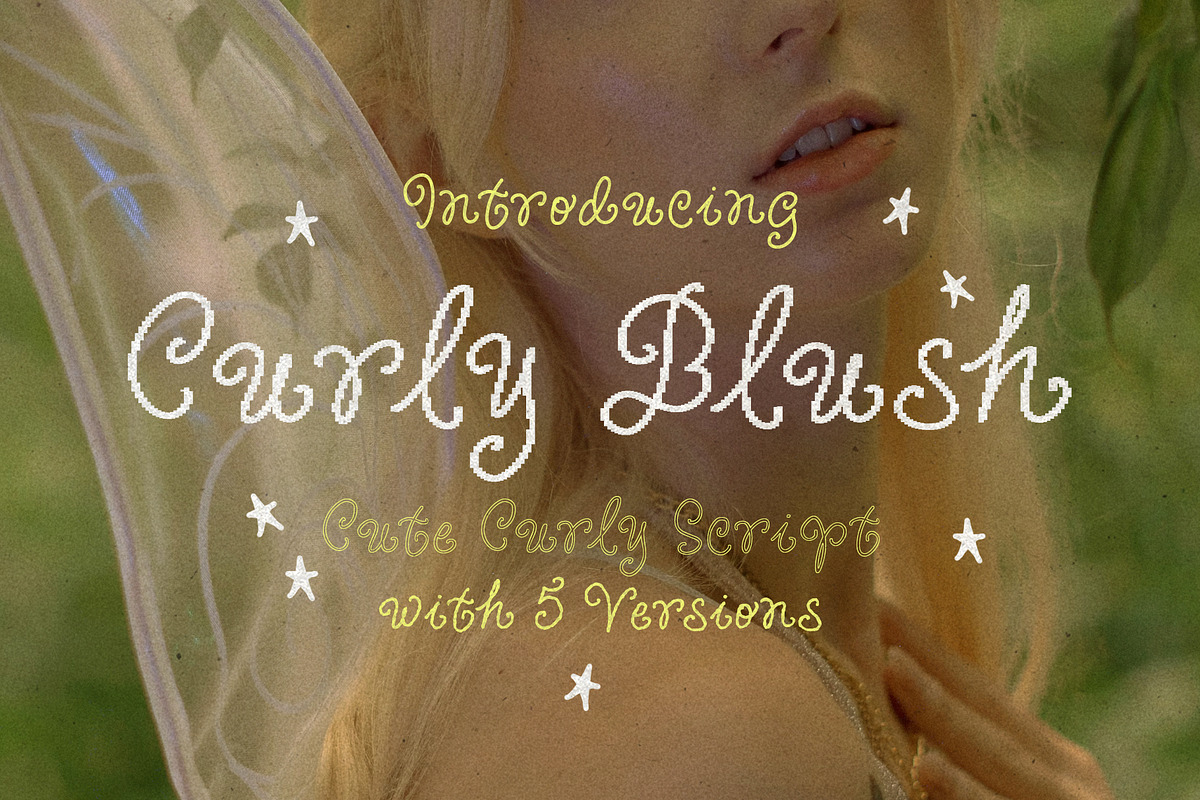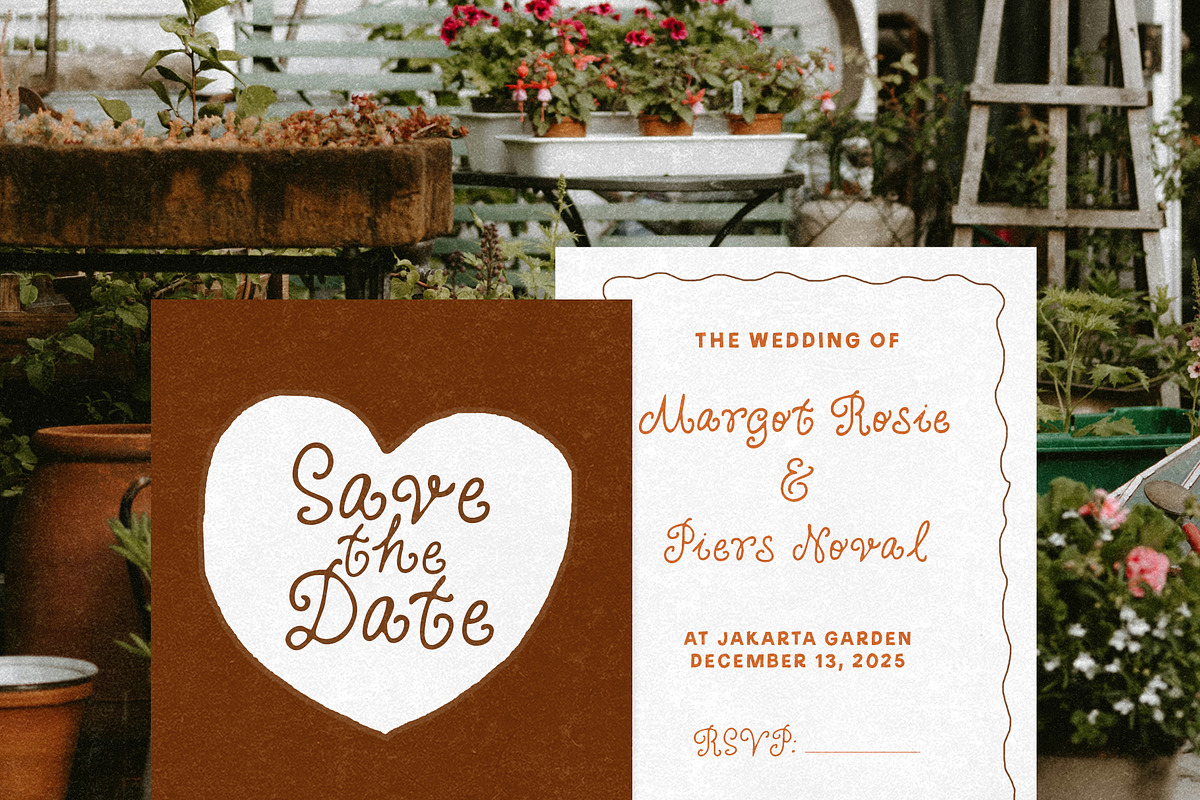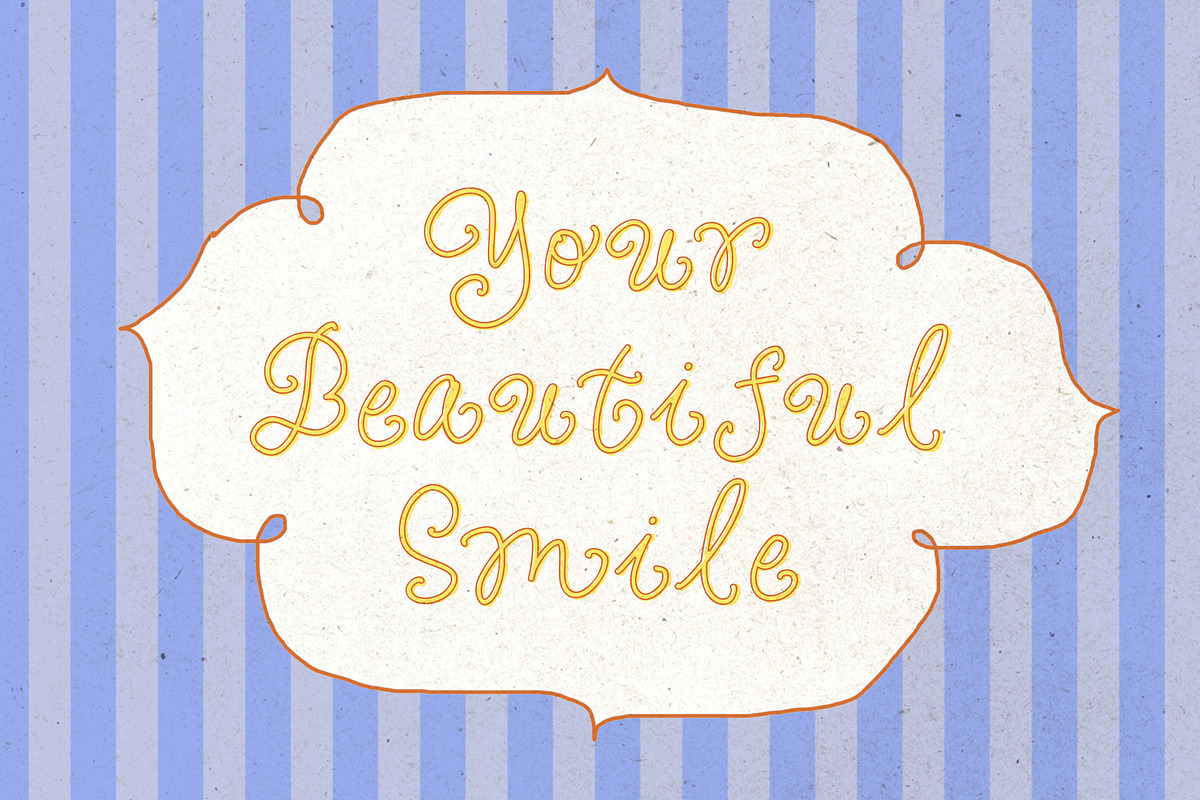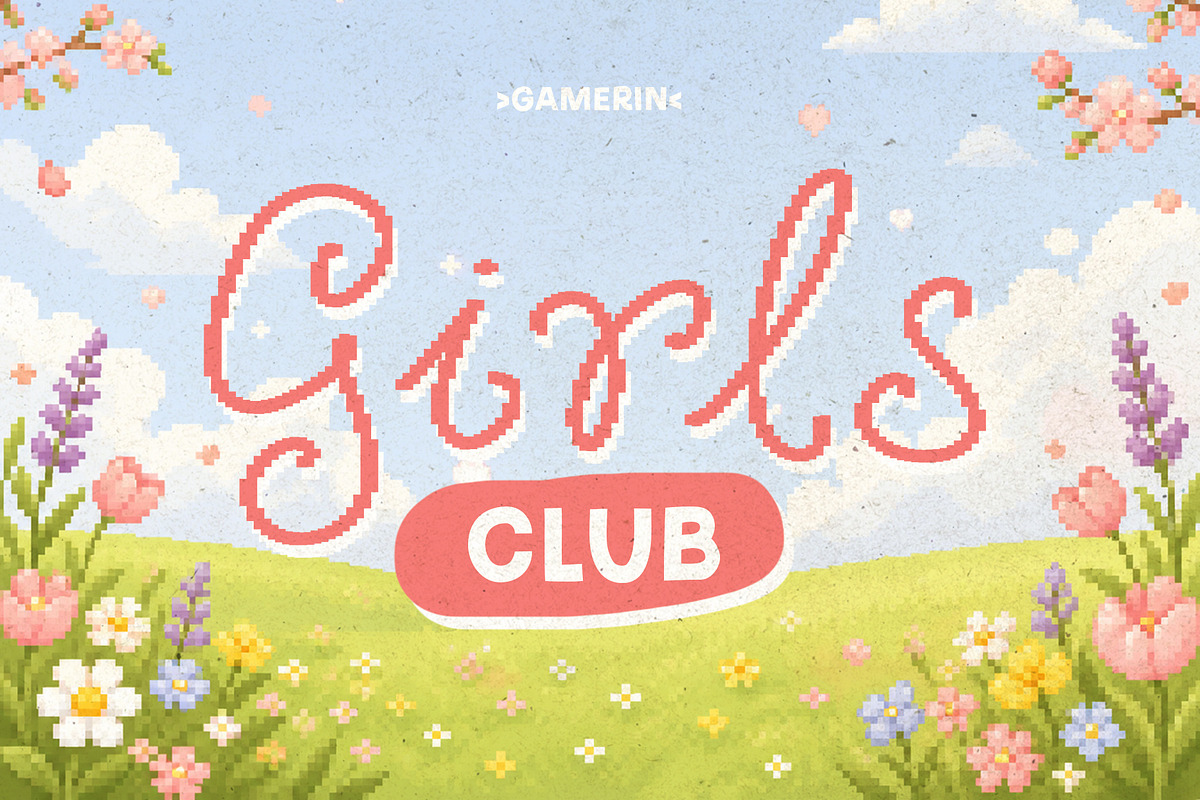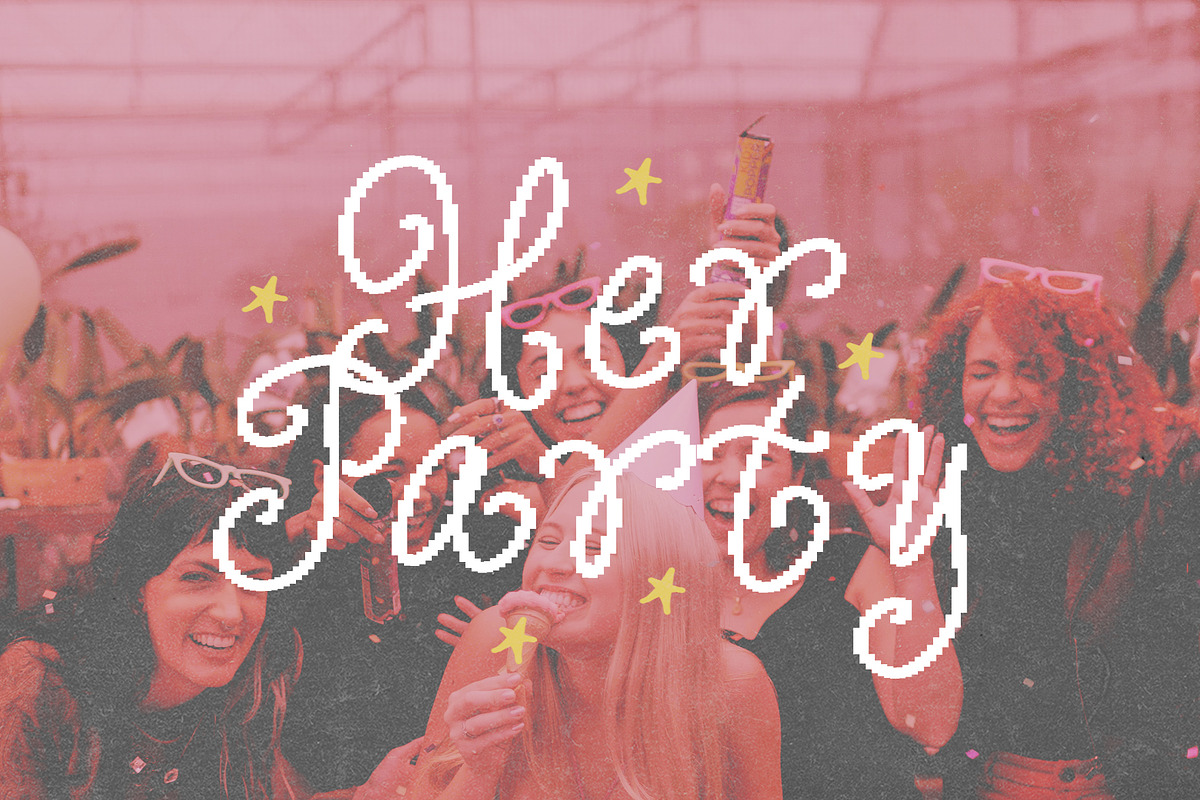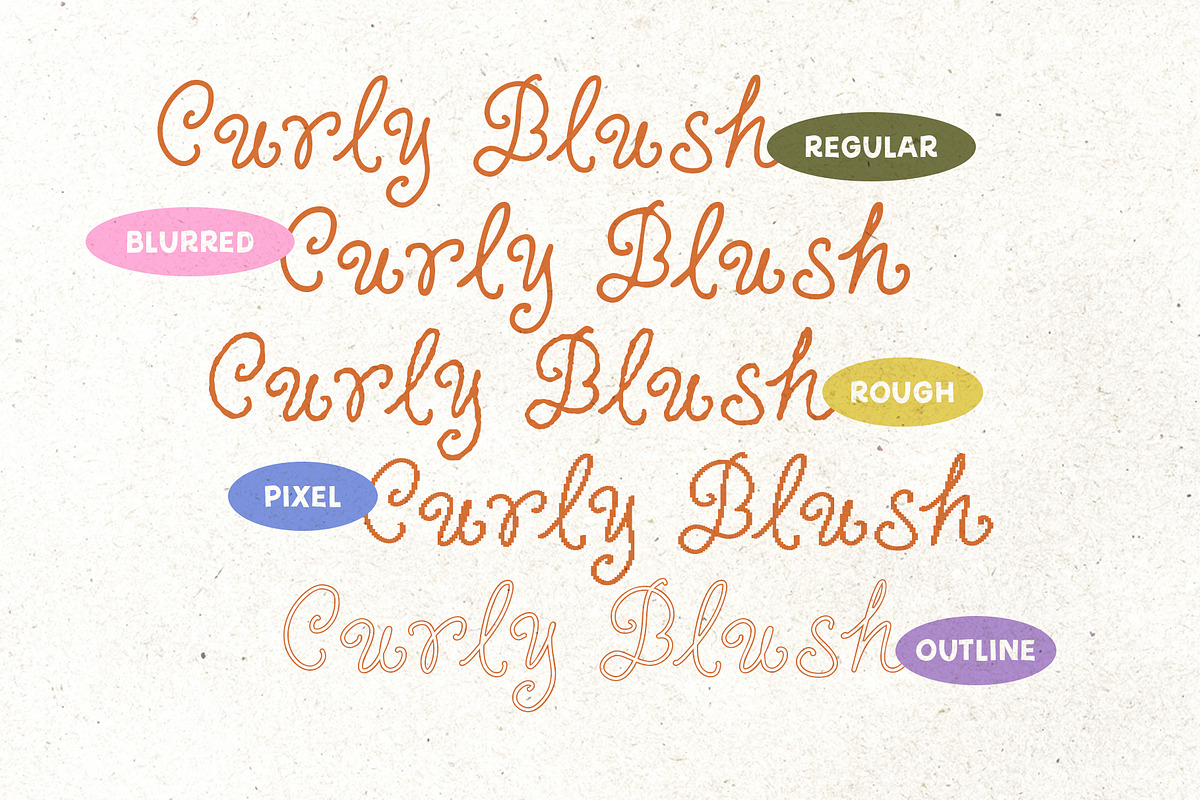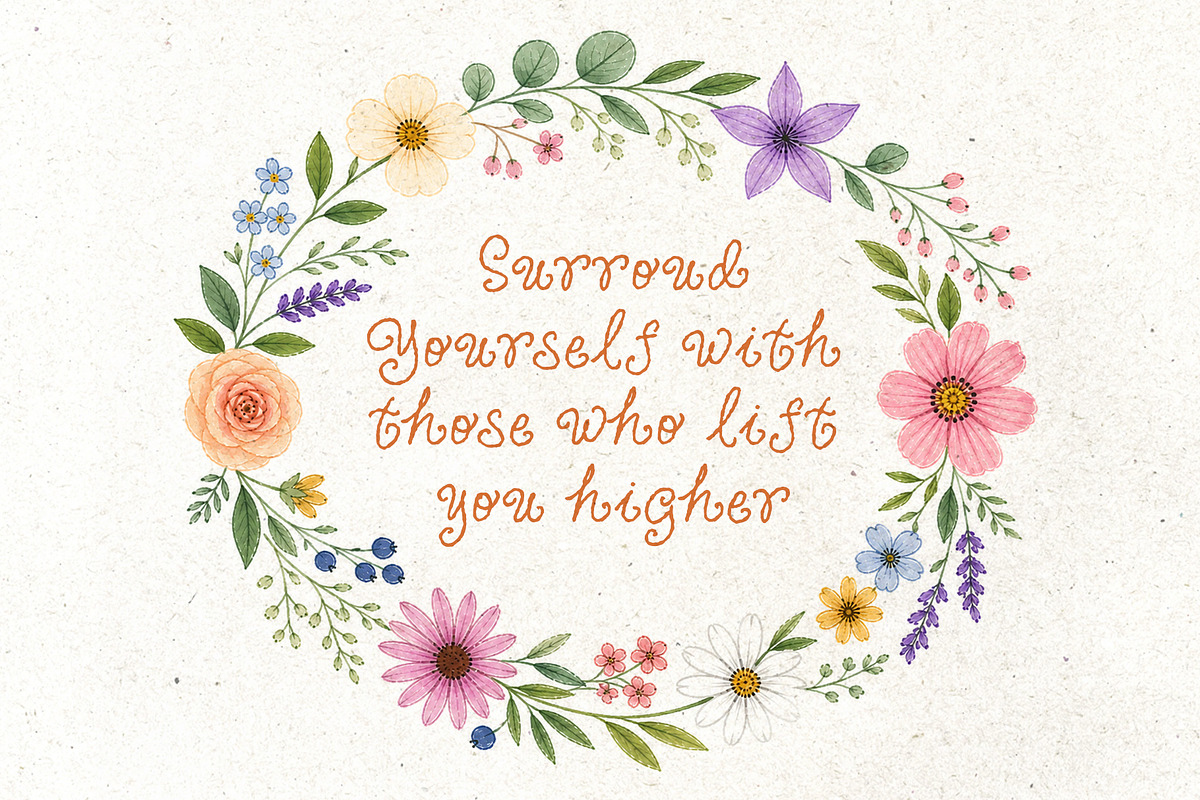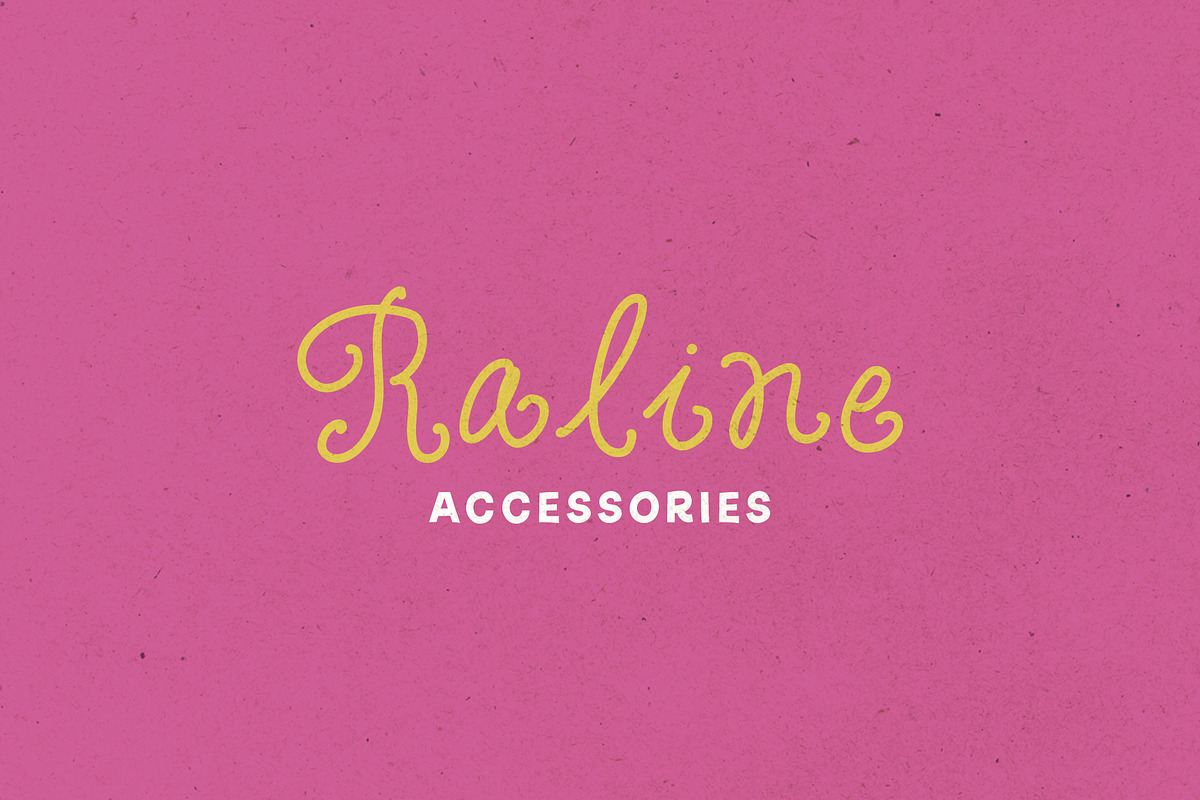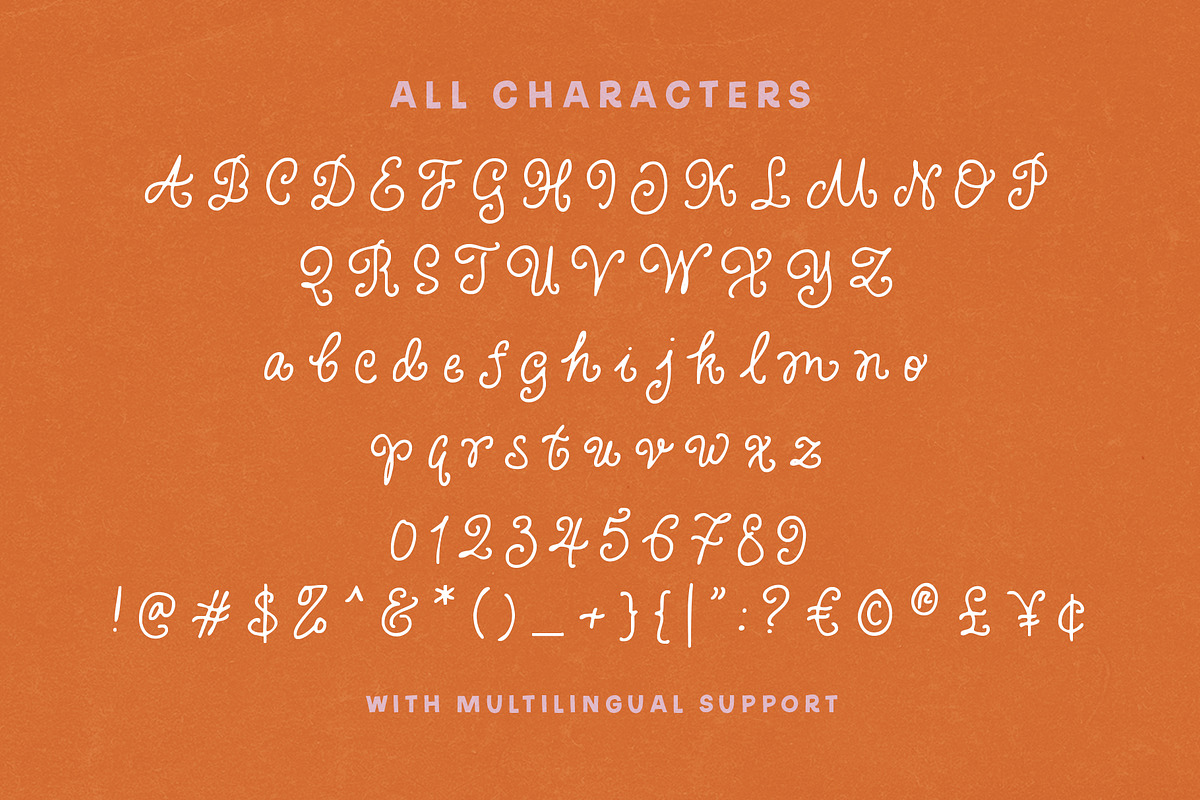
Curly Blush Cute Curly Script
Curly Blush swirls in with cute curly strokes and a soft handwritten feel that looks straight out of a dreamy scrapbook. The letters are playful, sweet, and full of tiny magical vibes, making every word feel warm and charming. With 5 fun versions to mix and match, this font is perfect for beauty brands, girly logos, invitations, cute packaging, and social posts that want to feel light, lovely, and a little sparkly.
Uppercase & lowercase
Numbers and punctuation
Alternates & Ligatures